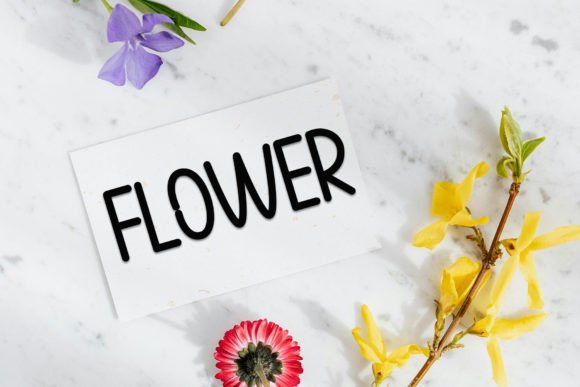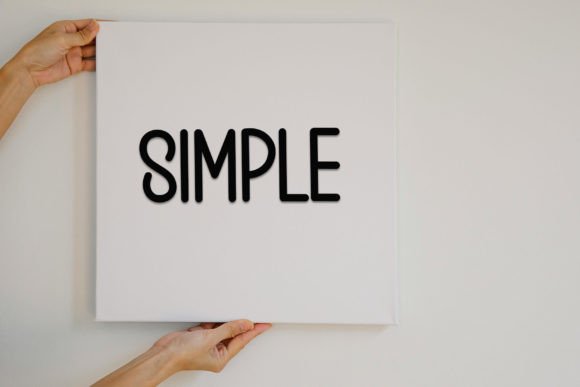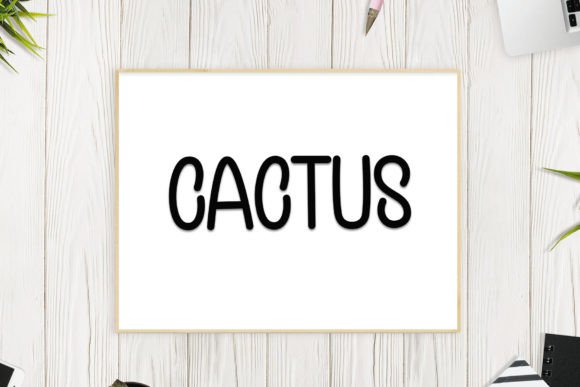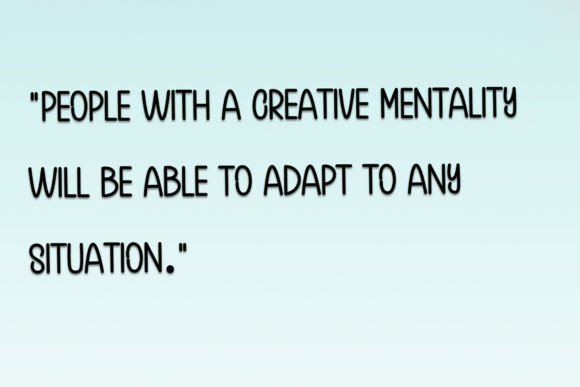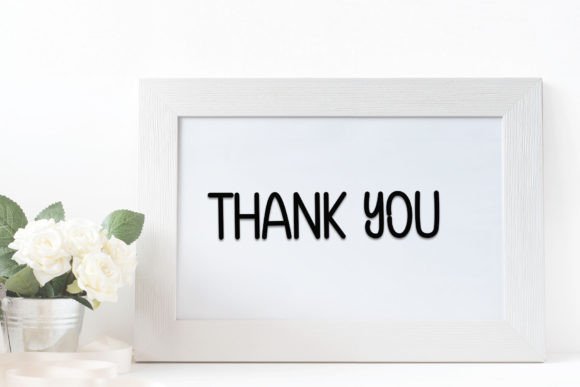
The Magic of Designer Font: Elevate Your Holiday Designs
A Personal Review: What I Love and What to Watch Out For
- ✅ Festive and happy vibe that’s perfect for holiday designs
- ✨ Decorative elements and unique flair that add charm to your projects
- 🔍 PUA coded for easy access to glyphs and ligatures
- 🎨 Highly versatile and suitable for various design applications, from greeting cards to gift labels
A Few Quirks to Keep in Mind
While Designer Font is an excellent choice for holiday designs, there are a few things to be aware of:
- ⚠️ May not be suitable for body text or large blocks of text due to its decorative nature
- 🤔 Limited use outside of holiday-themed projects, as its festive vibe might not fit other design contexts
The Story Behind Designer Font
Designer Font was created with the intention of capturing the magic of the holiday season. The designer wanted to create a typeface that would evoke feelings of joy, warmth, and nostalgia. With its decorative elements and unique flair, Designer Font is the perfect choice for designers looking to add a touch of festive charm to their projects.
Q: Is Designer Font suitable for body text?
A: While Designer Font is a beautiful typeface, it’s not ideal for body text due to its decorative nature. It’s best used for headlines, titles, or short paragraphs.